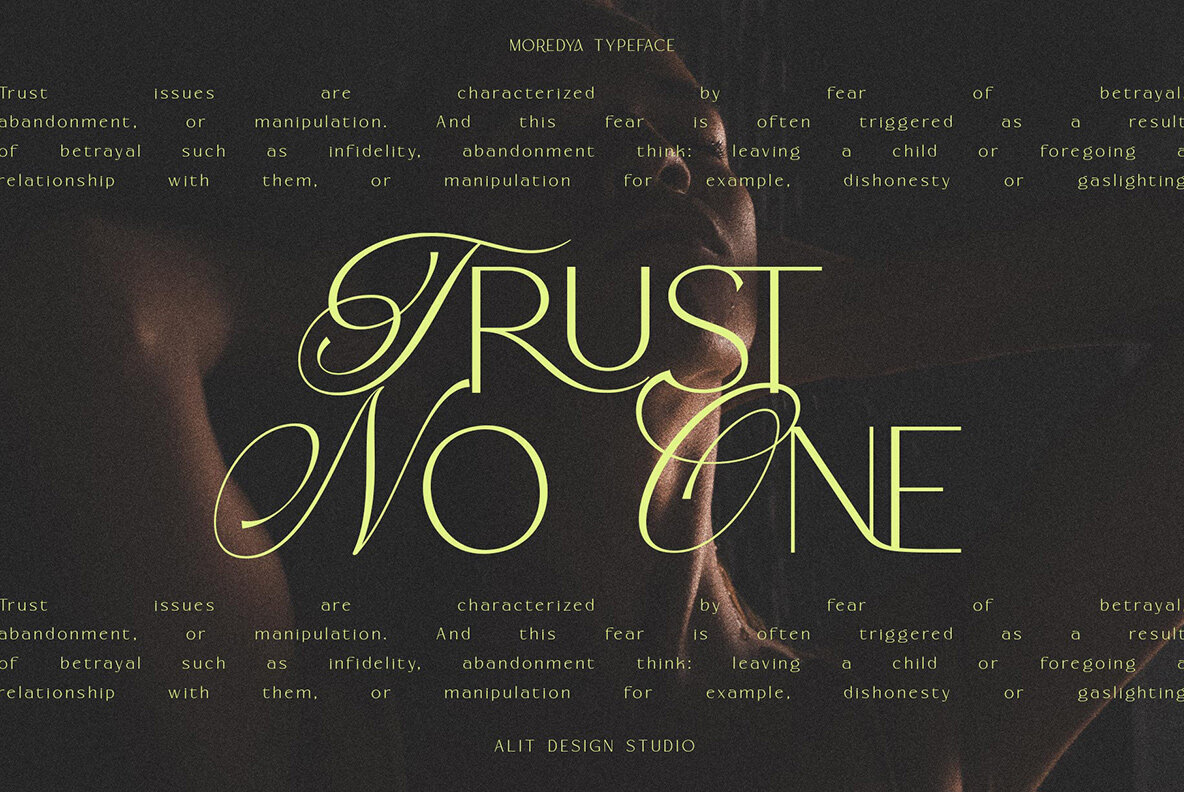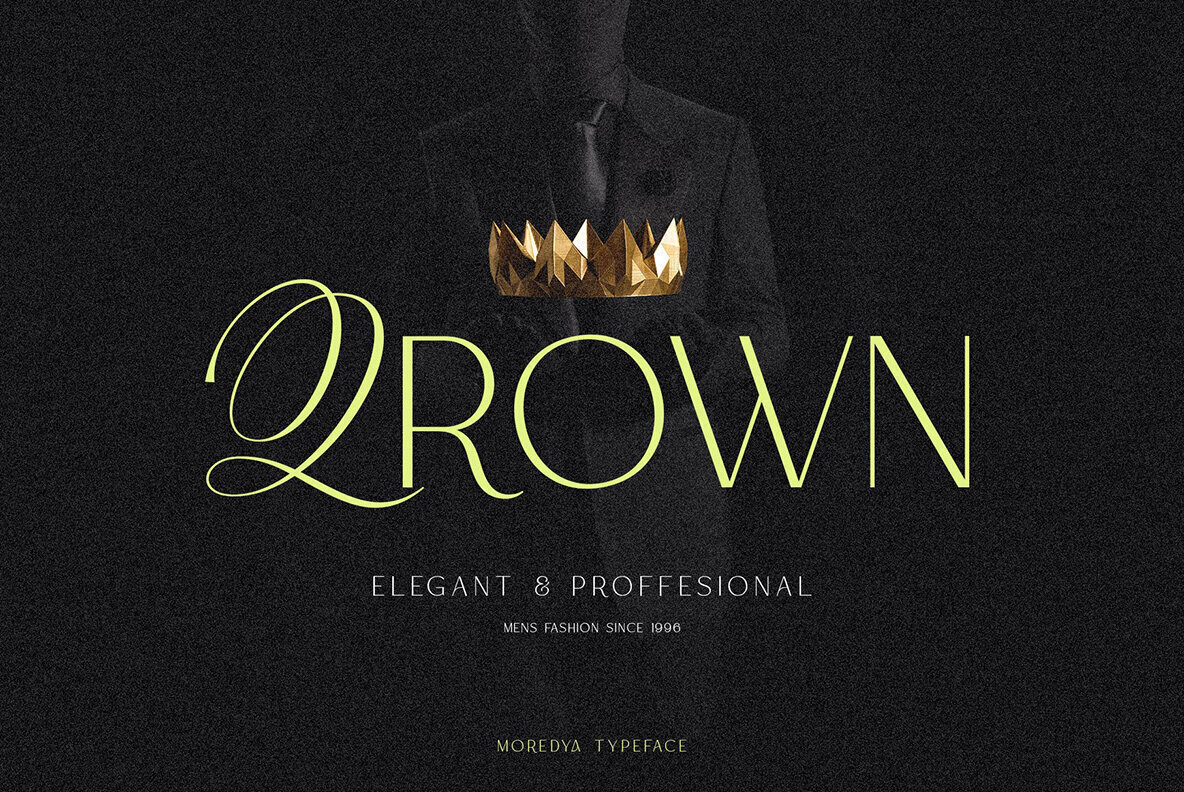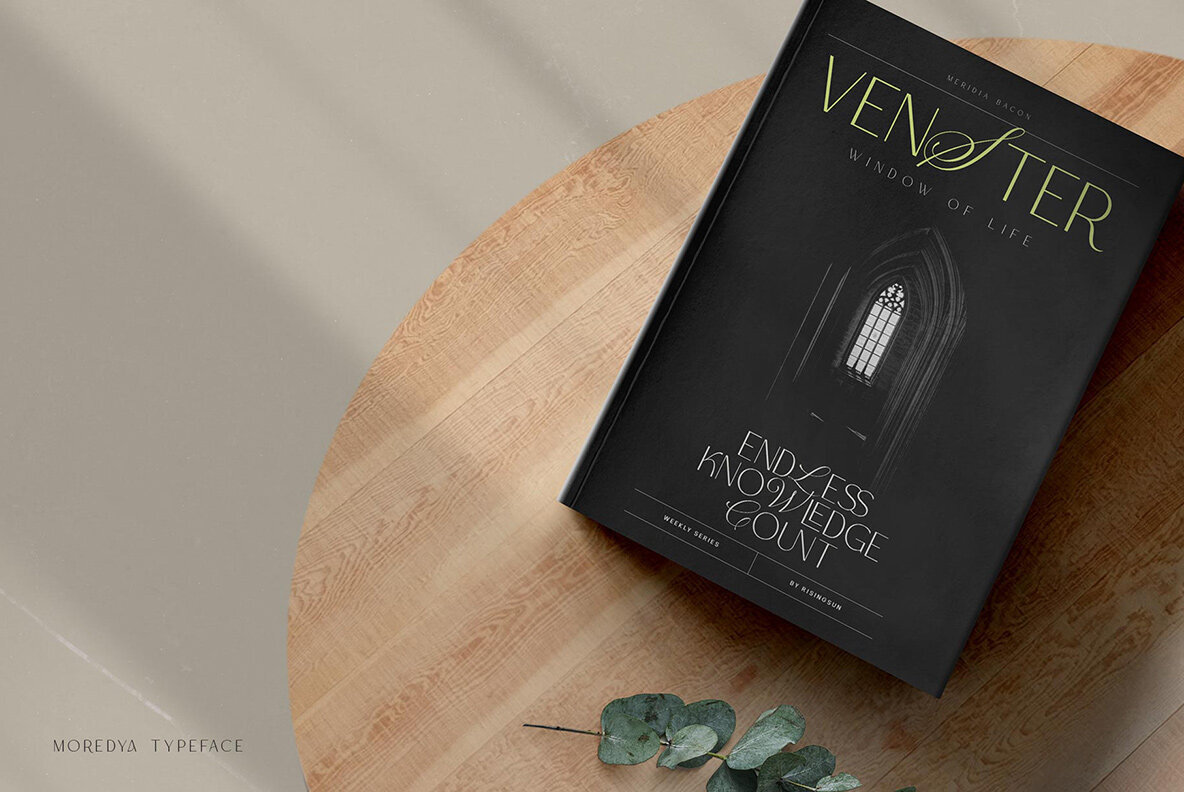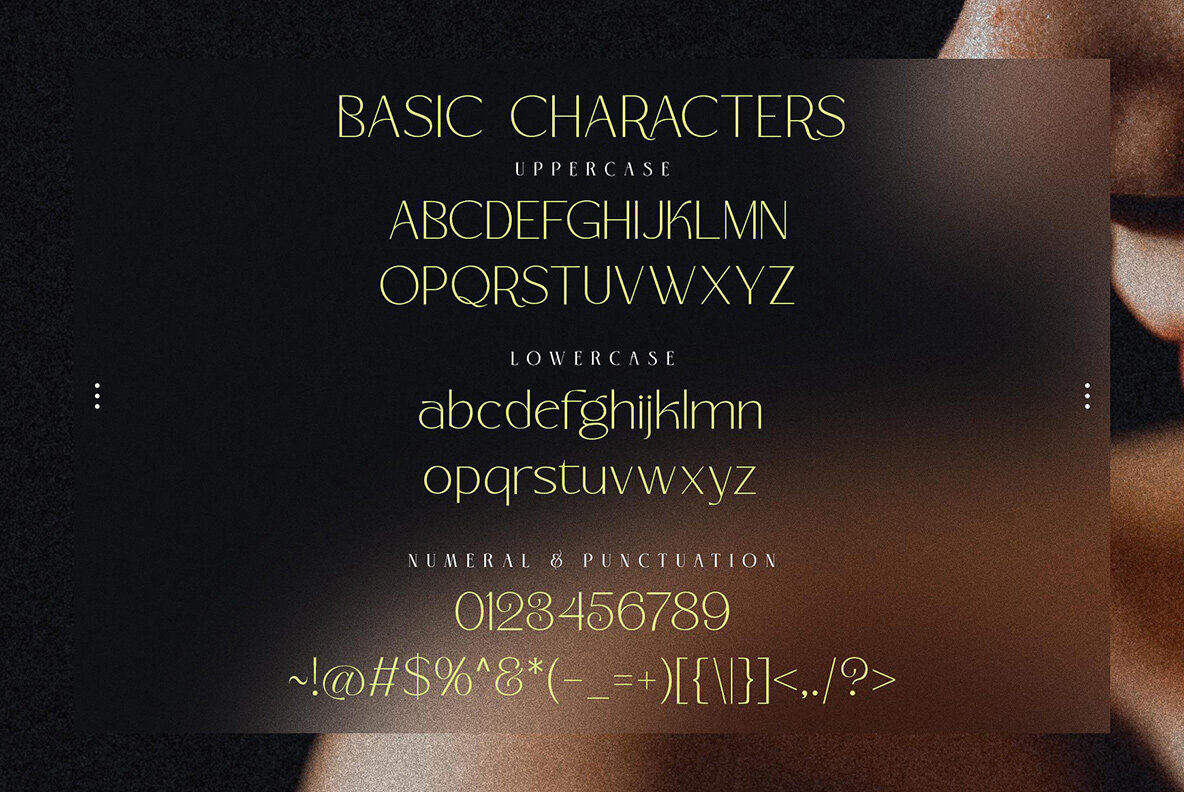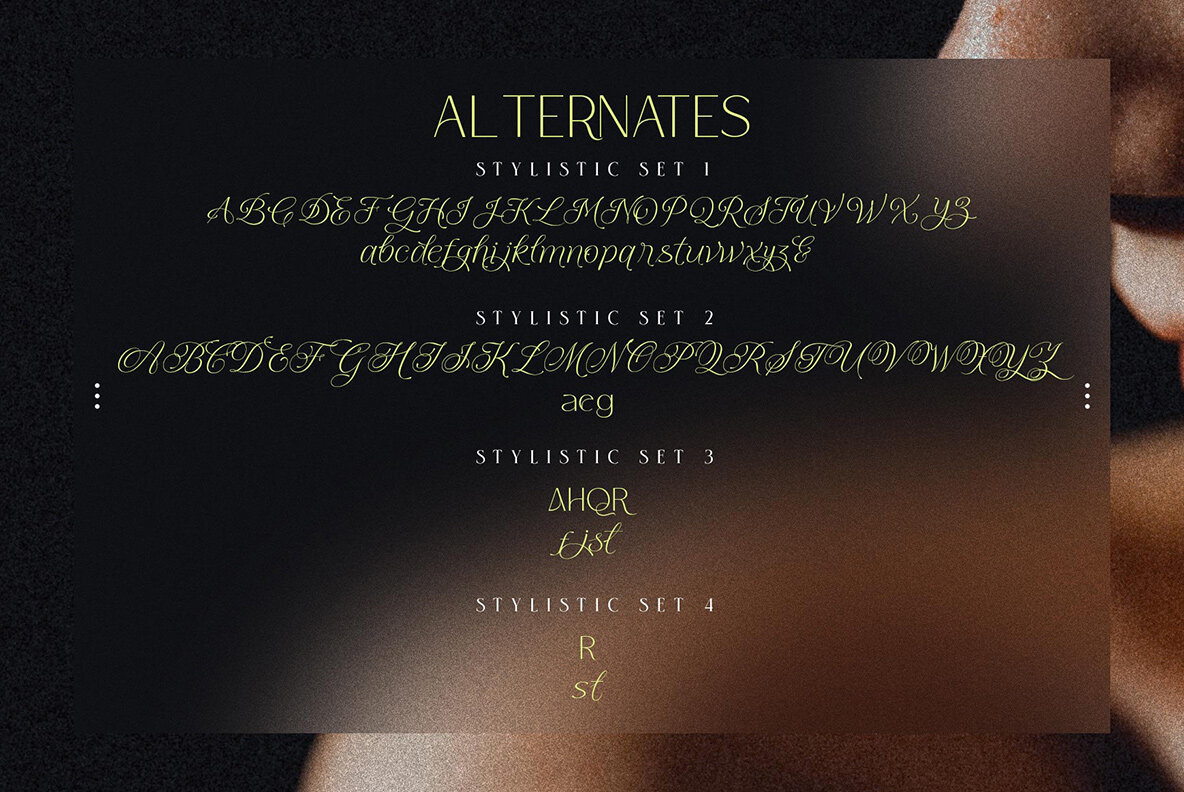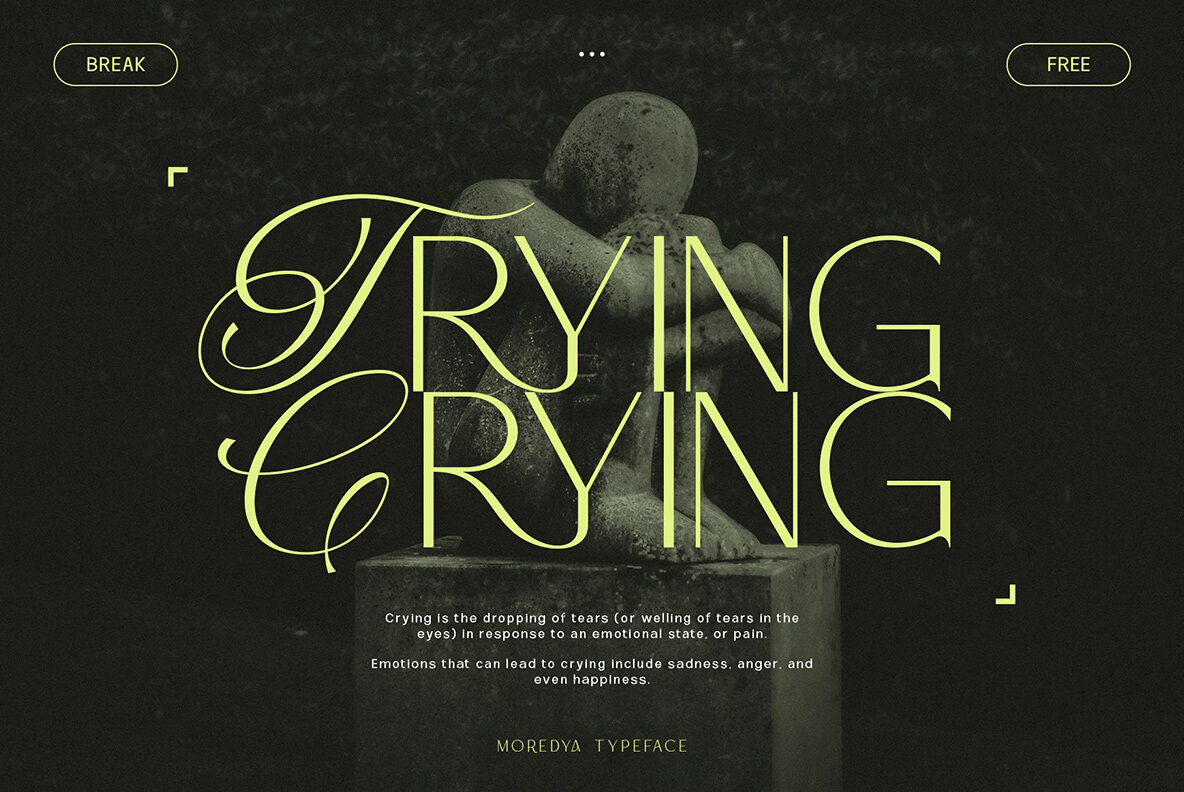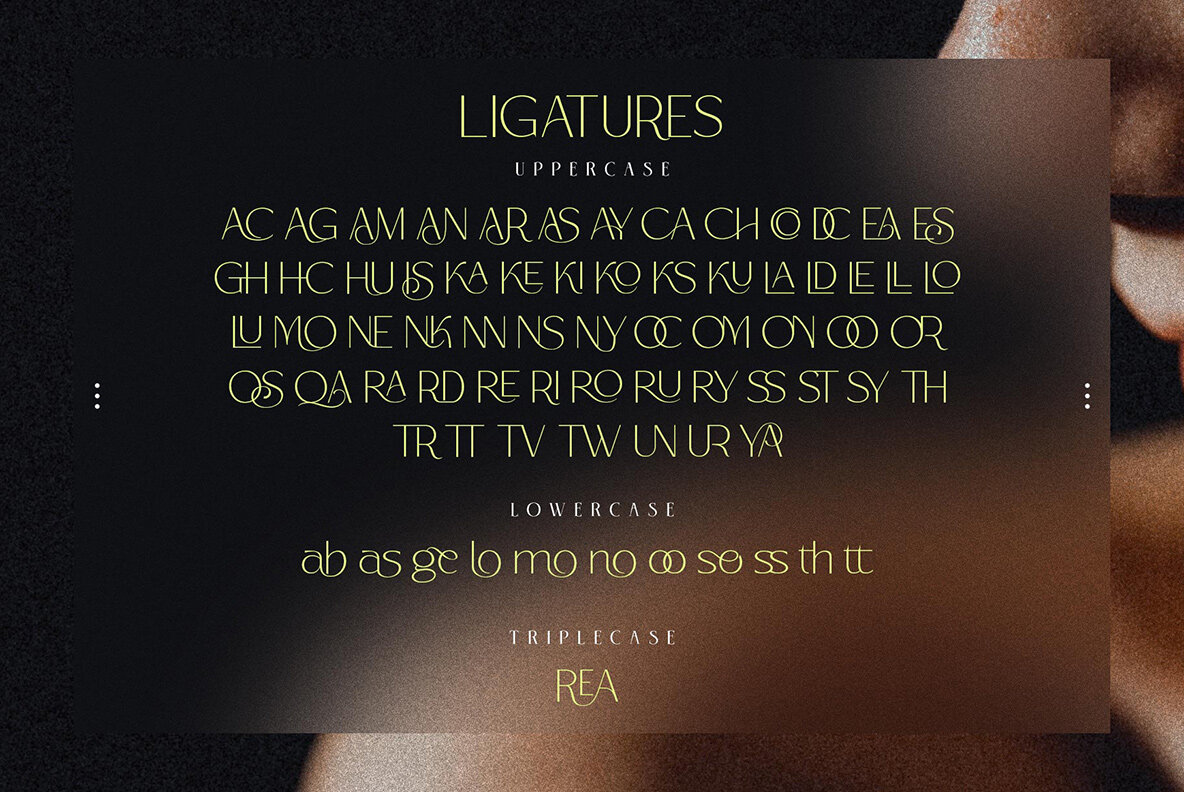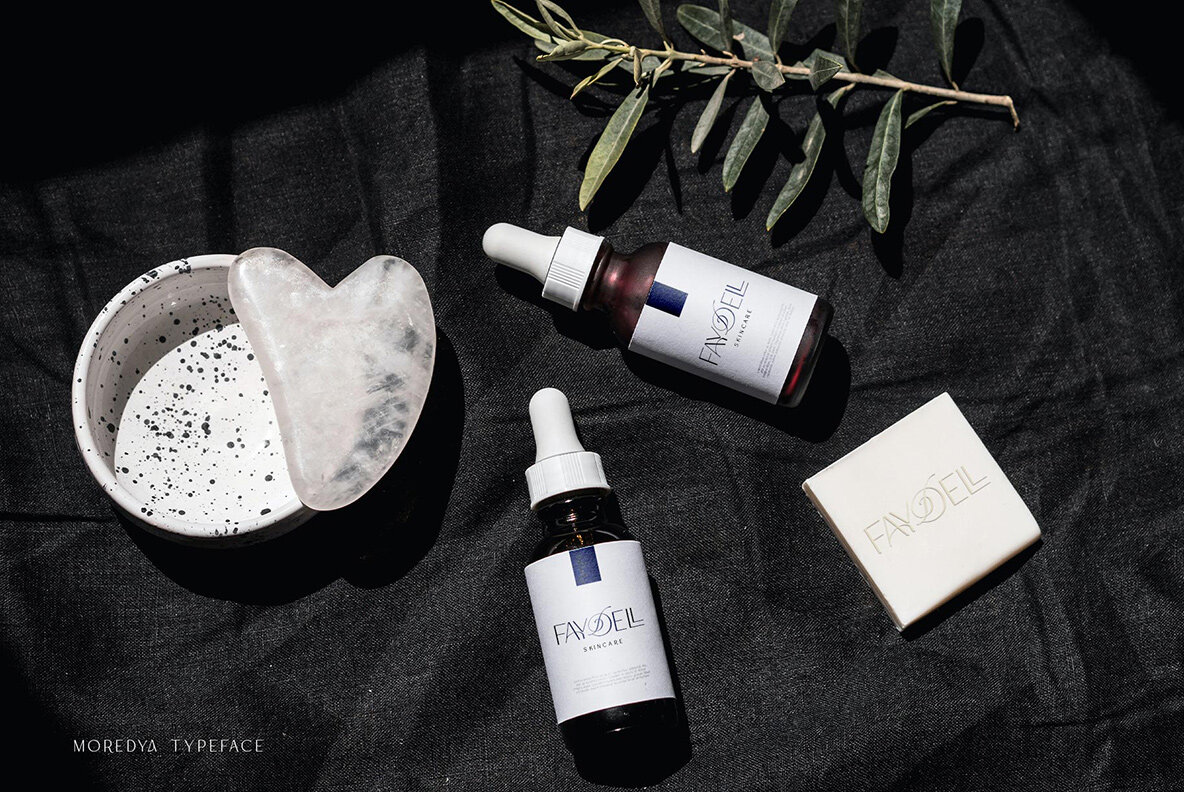
Moredya Font
Moredya Regular
Moredya offers an intriguing blend of elegance and simplicity, combining a sophisticated script font with a clean sans serif design. This unique combination sets it apart from typical font collections, making it an excellent choice for creative projects that demand a touch of individuality. Whether you're designing magazine covers, crafting brochures, or creating Instagram visuals, Moredya ensures your designs stand out. Features: Moredya thrives in environments that embrace unique typographic solutions. To access its exquisite swashes, use programs supporting OpenType features like Adobe Illustrator CS and Adobe Photoshop CC. If your software lacks a Glyphs panel, additional swashes can be installed to enhance your design repertoire.Moredya: A Fusion of Script and Sans Serif Style